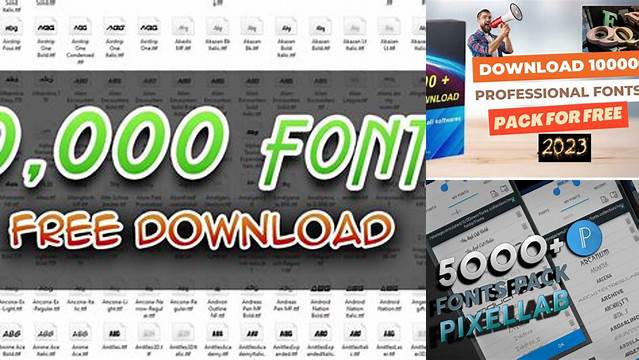
10000+ Fonts Pack Free Download For Pixellab (TTF)
Hey guys! Are you looking to supercharge your Pixellab designs with an amazing collection of fonts? You've come to the right place! We’re diving deep into the world of fonts and how you can snag a massive 10000+ fonts pack for free, specifically tailored for Pixellab in TTF format. Let’s get started and make your designs pop!
1. What is a Font Pack and Why Do You Need One?
Okay, so what's the deal with font packs? A font pack is basically a bundle of fonts – imagine a treasure chest filled with different styles, from elegant scripts to bold sans-serifs. Why do you need one? Well, variety is the spice of life, especially in design! Having a diverse font library means you can match the perfect typeface to your project, whether it’s a sleek logo, an engaging social media post, or a professional presentation. With a 10000 fonts pack, you’re pretty much set for any design scenario that comes your way. Think of it as your secret weapon for design domination!
2. Understanding TTF Fonts for Pixellab
Now, let's talk TTF. TTF stands for TrueType Font, and it's a super common format for fonts. The great thing about TTF fonts is that they're scalable, meaning they look sharp at any size. This is crucial for Pixellab, where you might be working on anything from small icons to large banners. TTF fonts ensure that your text remains crisp and clear, no matter how you resize it. Plus, Pixellab loves TTF fonts – they're fully compatible, so you won't run into any frustrating compatibility issues. Using the right format can save you a ton of headaches, trust me!
6. Best Font Combinations for Pixellab Designs
So, you’ve got thousands of fonts – awesome! But how do you choose the right ones? Font pairing is an art, my friends. A good rule of thumb is to combine a display font (something bold and eye-catching) with a simpler, more readable font for body text. Think a strong, sans-serif header paired with a classic serif body. Or maybe a script font for a touch of elegance combined with a clean, geometric sans-serif. Experiment and see what works for your design! There are tons of resources online that offer font pairing suggestions, so don't be afraid to do a little research and find your perfect match.
7. Exploring Different Font Styles: Serif, Sans-serif, Script, and More
Let's geek out about font styles for a sec! Serif fonts have those little feet or strokes at the end of the letters (think Times New Roman), giving them a classic, formal feel. Sans-serif fonts are cleaner and more modern, without the serifs (like Arial or Helvetica). Script fonts mimic handwriting, adding a touch of elegance or personality. Then there are display fonts, which are designed to be attention-grabbing, perfect for headlines and titles. Each style brings a different vibe to your design, so understanding the nuances can really elevate your work. Play around with different styles and see how they impact your overall message.
8. Utilizing Fonts to Enhance Your Pixellab Graphics
Fonts aren't just about words; they're a crucial part of your visual communication. The right font can enhance the mood, style, and message of your graphic. A playful font can make a design feel fun and approachable, while a bold, strong font can convey authority and confidence. Think about the context of your design and choose a font that aligns with your goals. Consider factors like readability, legibility, and overall aesthetic. When used strategically, fonts can transform a good design into a great one.
9. Creating Custom Text Effects with Pixellab Fonts
Pixellab is a powerhouse when it comes to text effects, and with your new font collection, you're ready to go wild! Experiment with shadows, strokes, gradients, and textures to create unique and eye-catching text treatments. Try adding a subtle shadow to make your text pop off the screen, or use a gradient to give it depth and dimension. You can even create 3D text effects for a truly dynamic look. The possibilities are endless, so don't be afraid to get creative and push the boundaries of what's possible. Trust me, it's super fun!